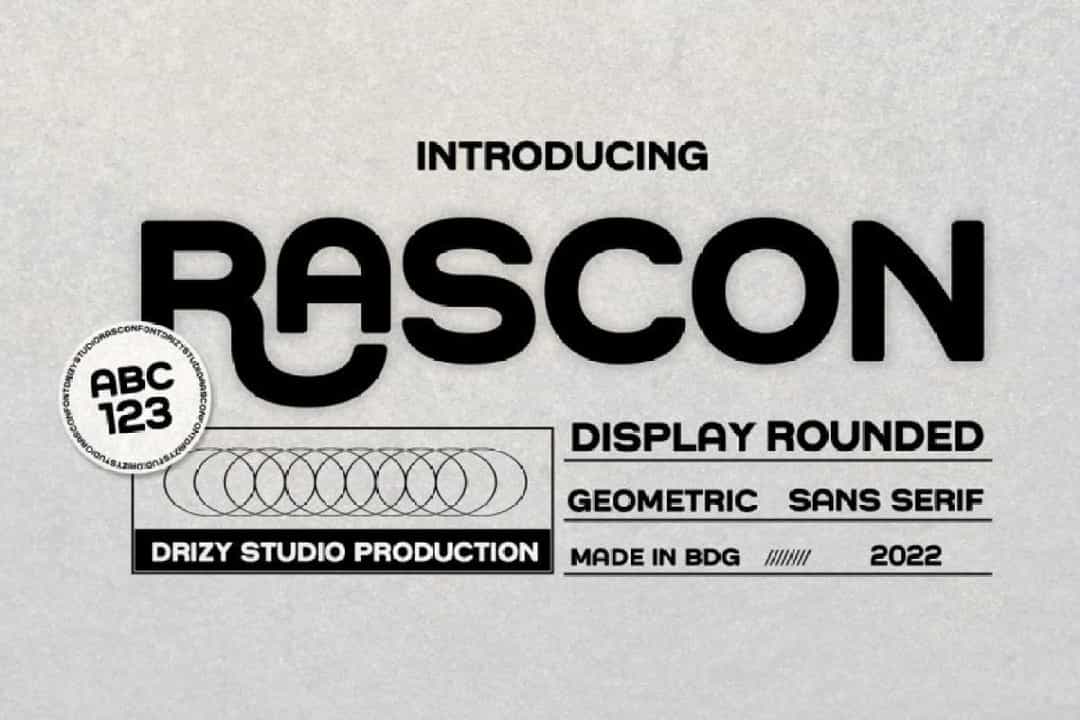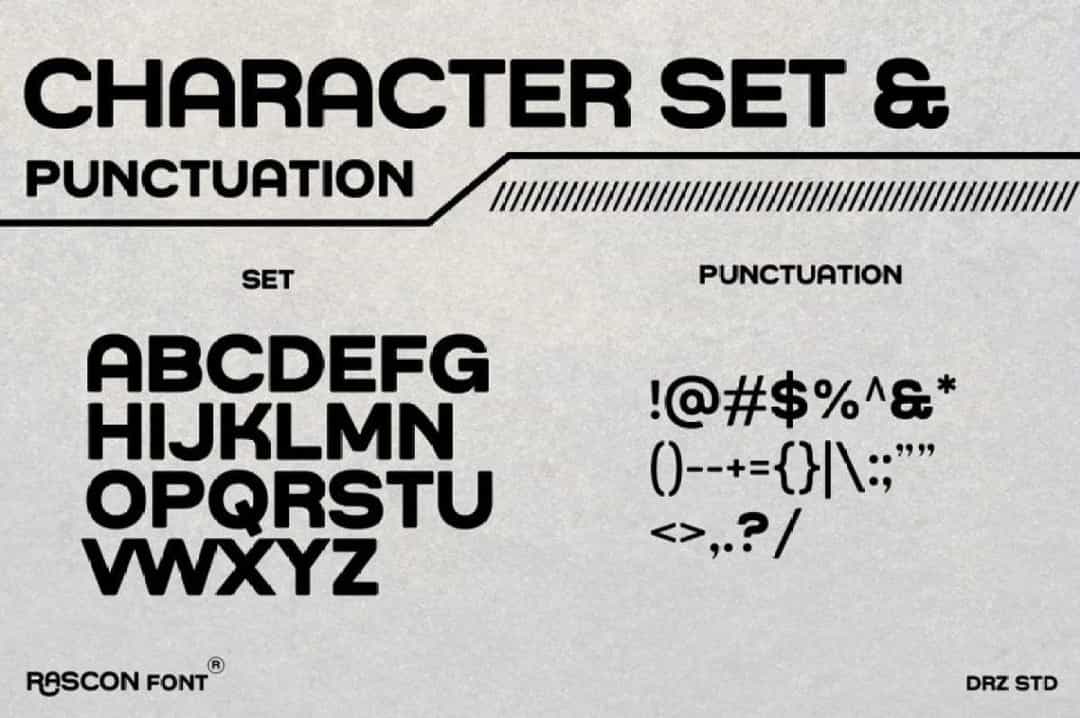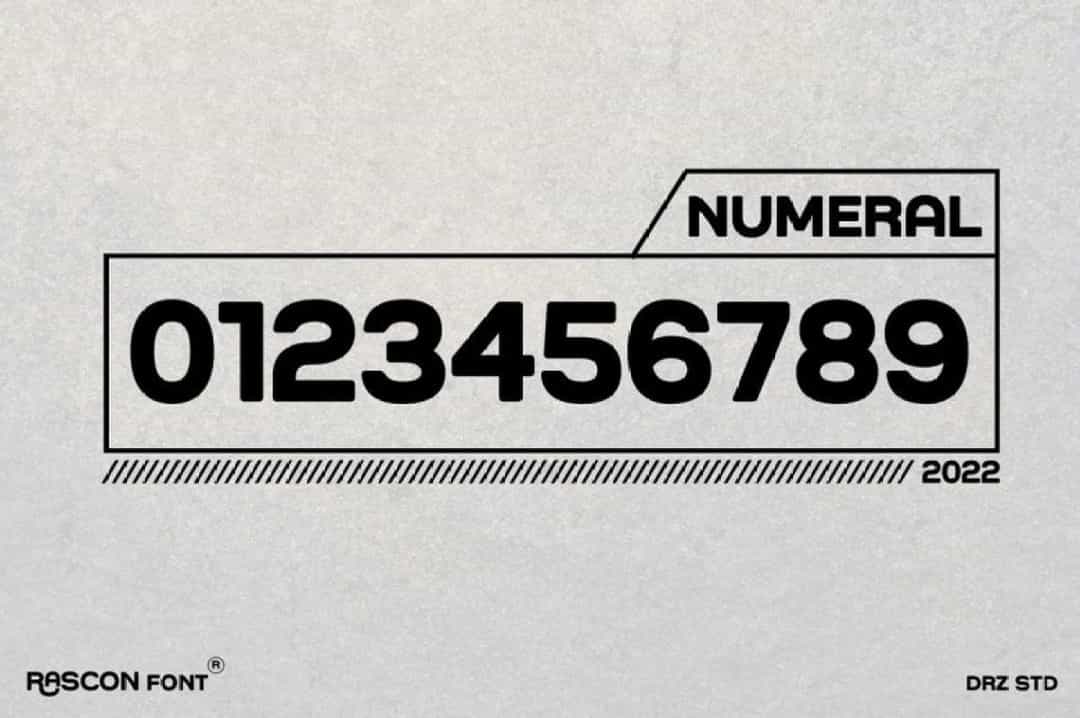
Discover Rascon Font, part of the Sans Serif Display collection—a versatile and unique font perfect for adding a personal touch to your projects. Download it for free and enjoy crafting designs with style, from invitations to social media posts. This font is available exclusively for personal use, giving you the freedom to create without limits. Unlock your creativity with Rascon Font today!
Rascon by Drizy studio is an equilateral sans serif font with all the styles needed for modern projects. You can use it for invitations and logos, branding magazines, photography packaging for products, card such as mugs, quotes posters labels signatures among many other applications.